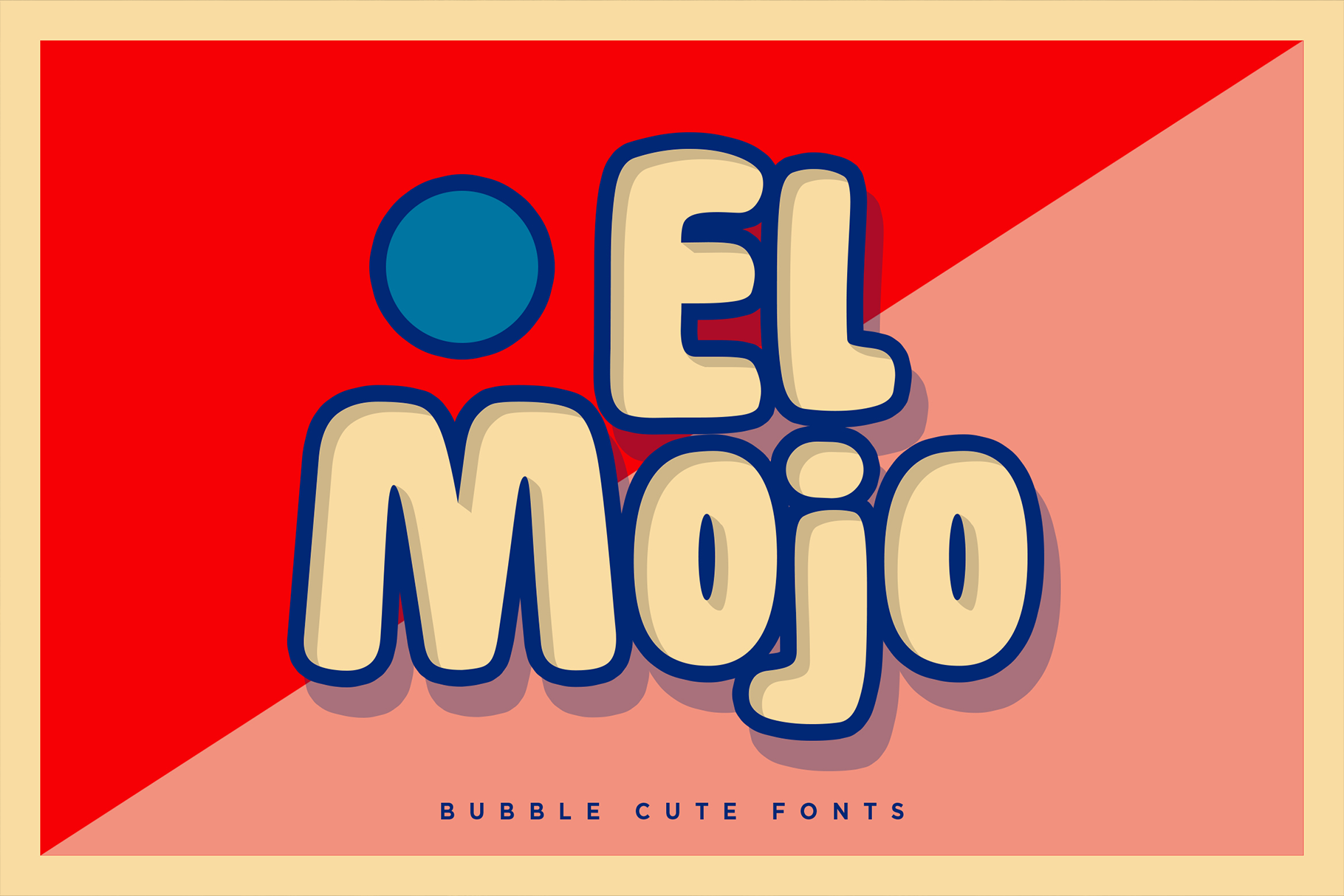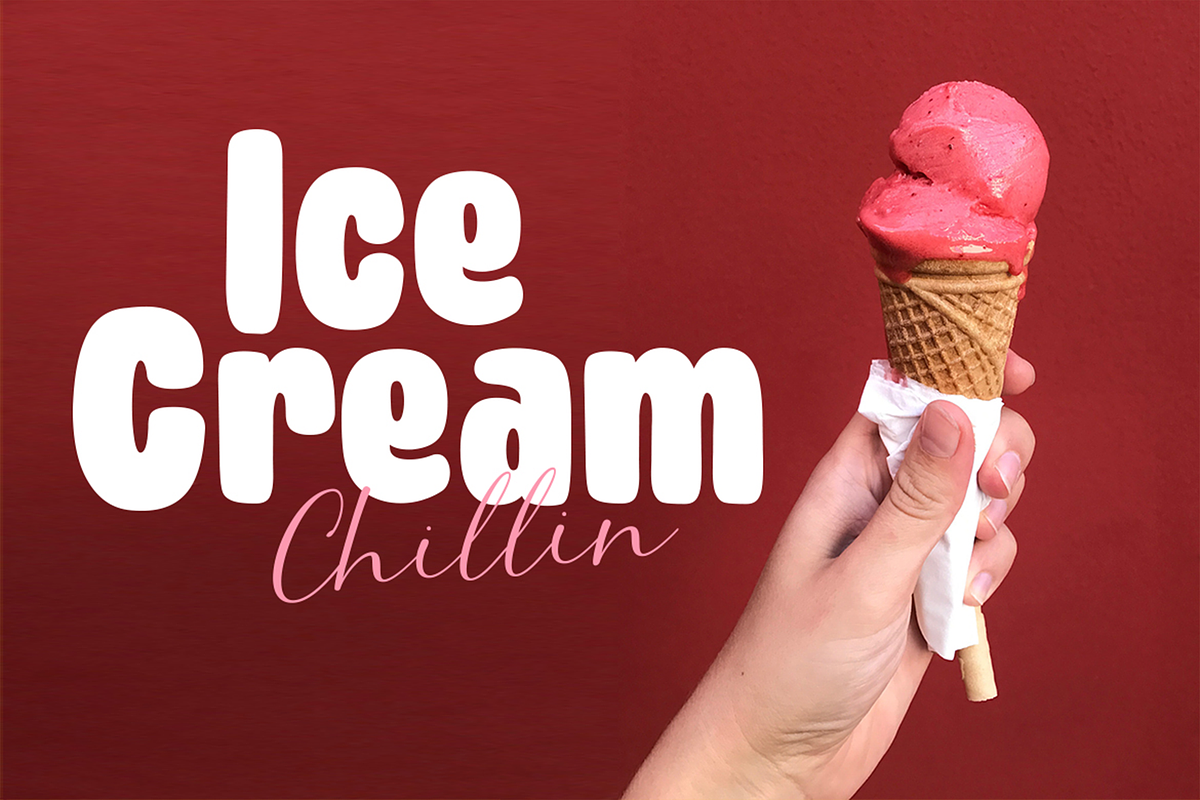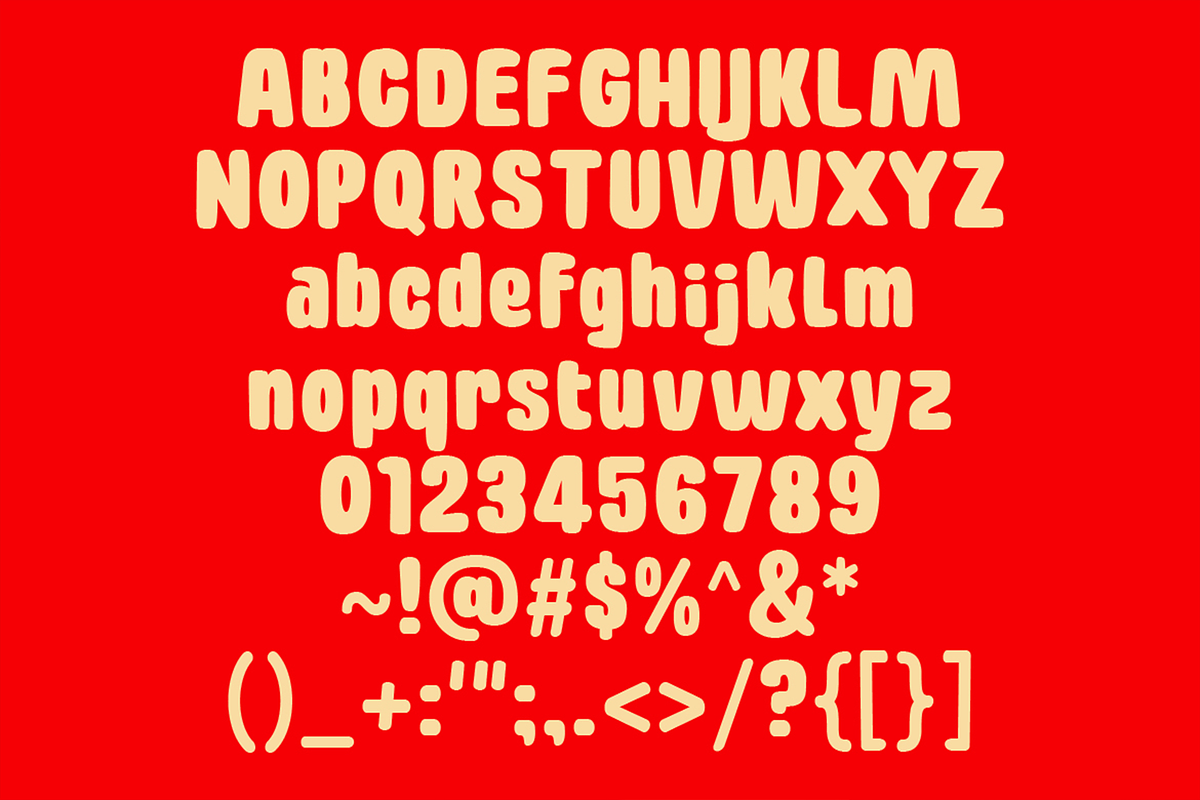
El Mojo - Bubble Pop Bold Fonts
Please welcome, El Mojo. A sweetener in a font form for your visual topping.
Perfectly fit for a pop design, kids book, food and beverages, ice cream branding, snacks, logo, branding, poster, book cover, you name it.